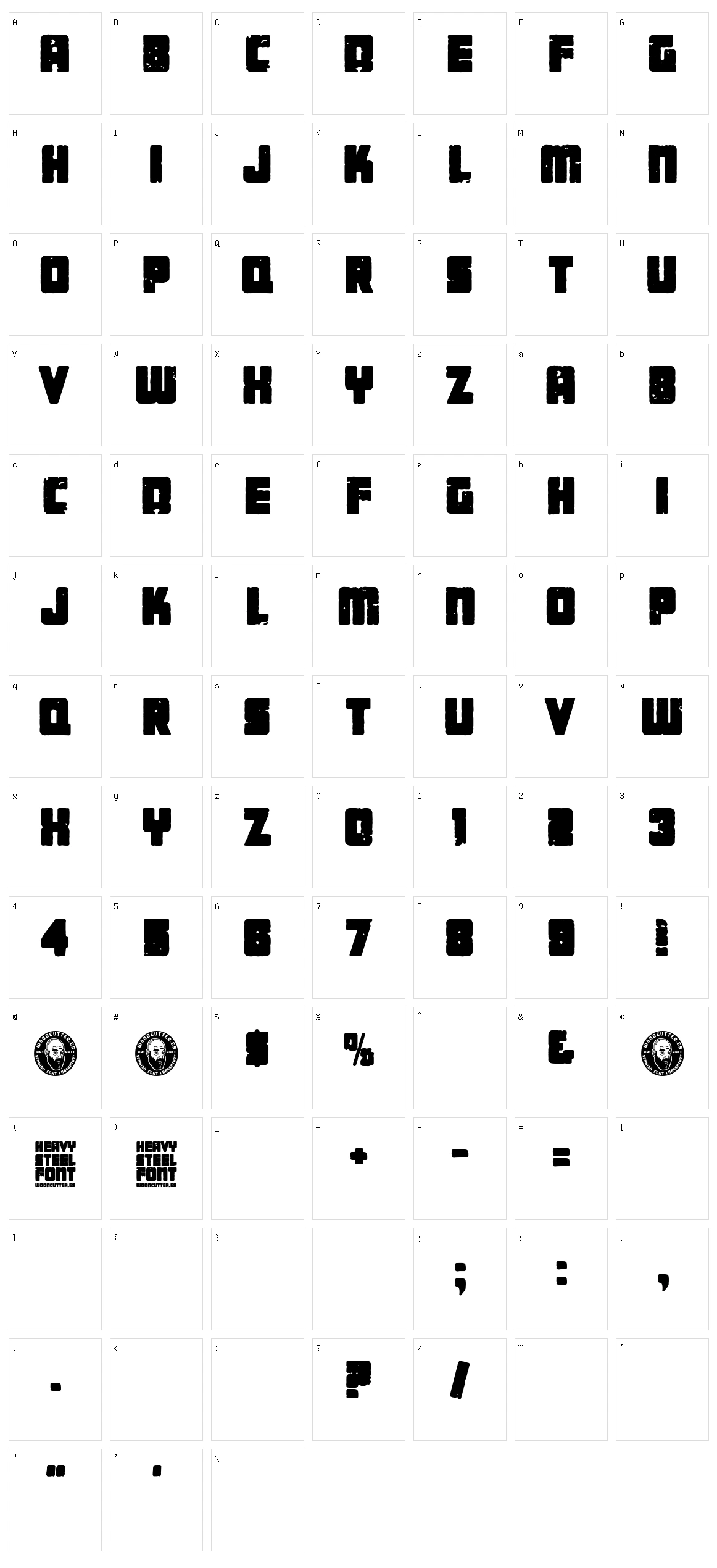
The free font Heavy Steel is carefully designed by Woodcutter, showcasing a thoughtful balance of creativity and usability and falls under the Eroded font style. When you download the ZIP file, it contains only 69.04 KB of font files, making it lightweight and quick to download. Please review the license details below to understand permitted usage and distribution rights. If license information is not available, we recommend using this font for personal projects only or contacting the author directly for commercial usage permissions.